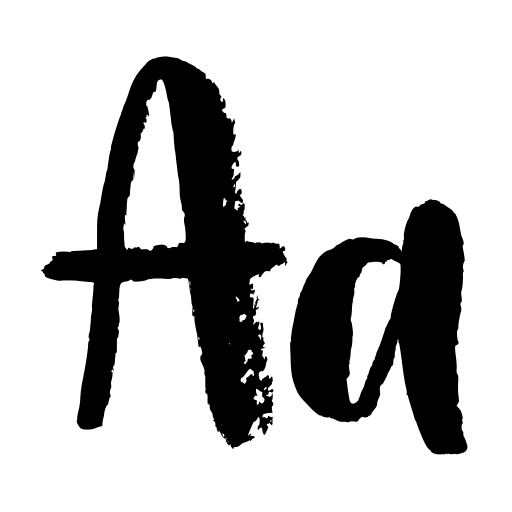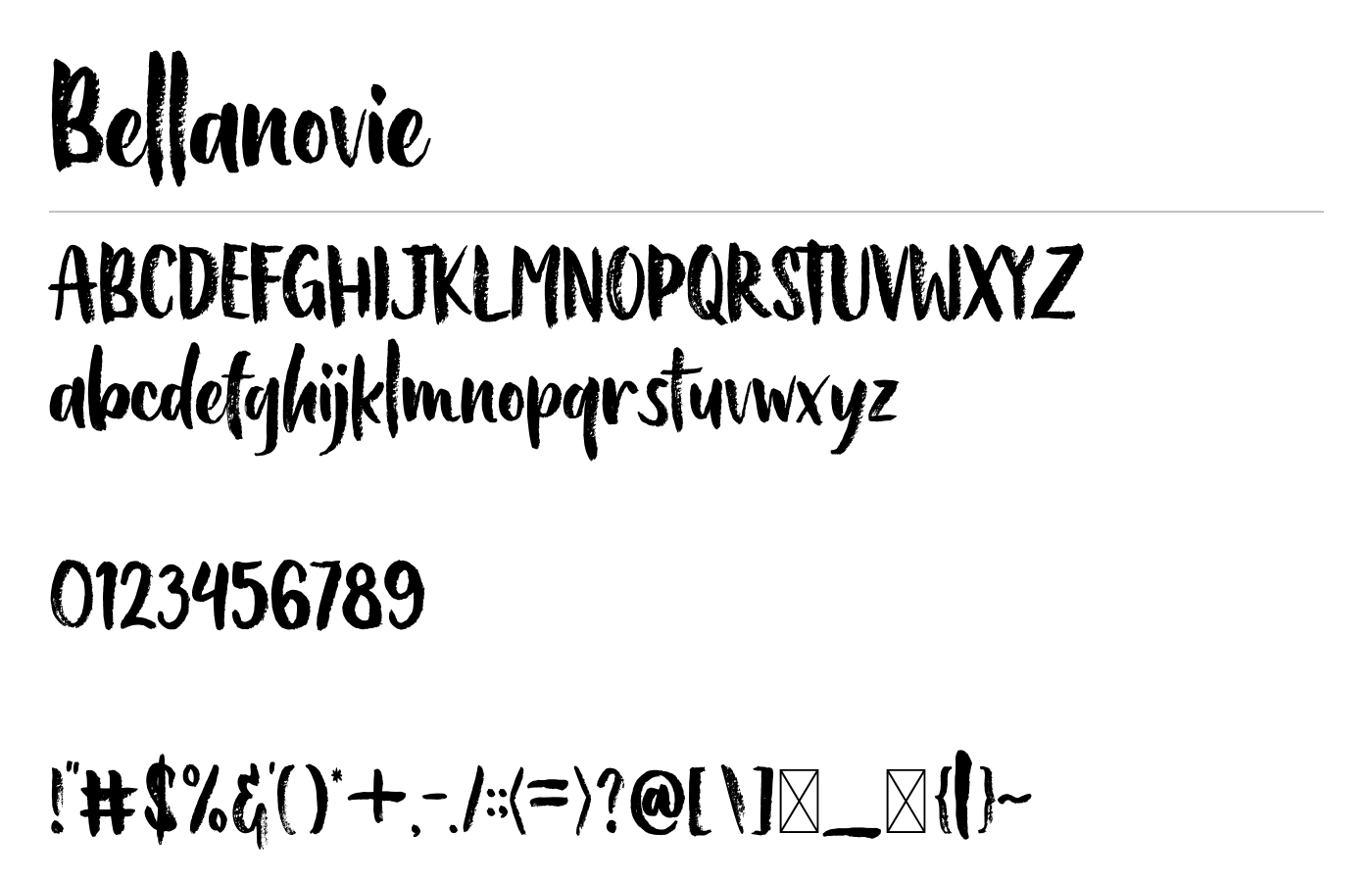
Bellanovie is a bold, brush-style script font with a hand-painted texture that gives it a lively and organic feel. Its tall, slightly condensed letterforms and irregular stroke widths create a casual yet confident look, perfect for creative branding, posters, and trendy packaging that seek a personal and artistic touch. This font works well in display sizes where its expressive character can shine and add a sense of authenticity and energy.
Bellanovie Font
About Bellanovie Font
| Font family | Bellanovie Font |
| Designer | Zabilla Studio |